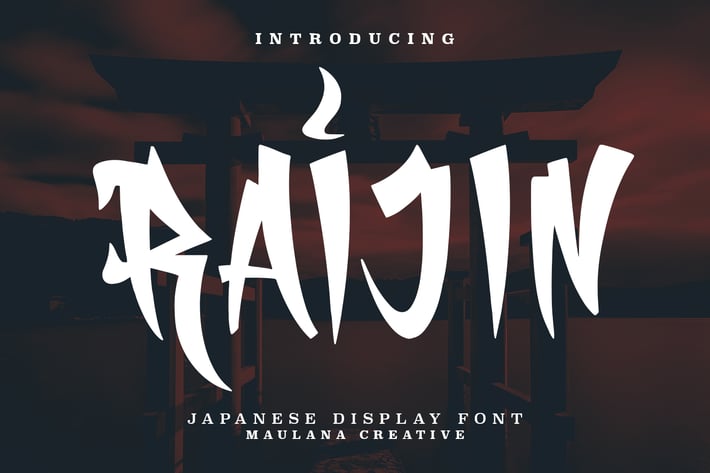
Raijin Japanese Display Font
Raijin is a japanese display font. Heavy stroke, fun character with a bit of ligatures and alternates. To give you an extra creative work. Raijin font support multilingual more than 100+ language. This font is good for logo design, Social media, Movie Titles, Books Titles, a short text even a long text letter and good for your secondary text font with script or serif. Make a stunning work with Raijin font.